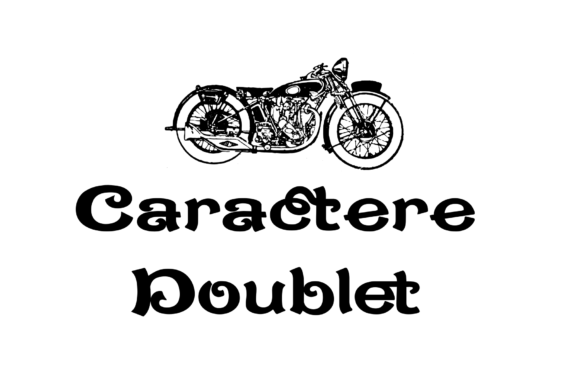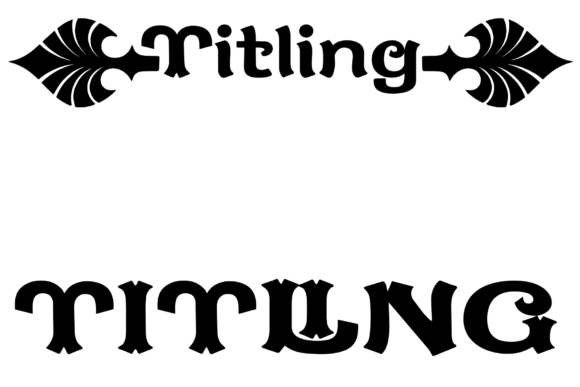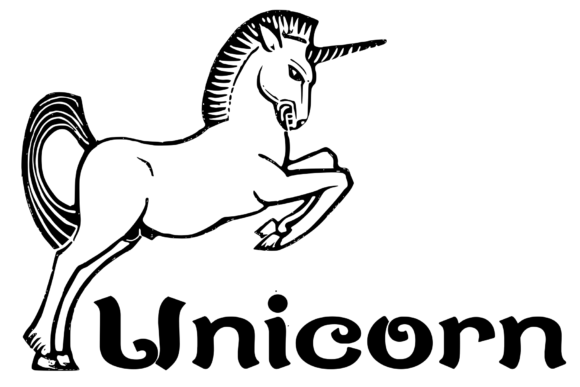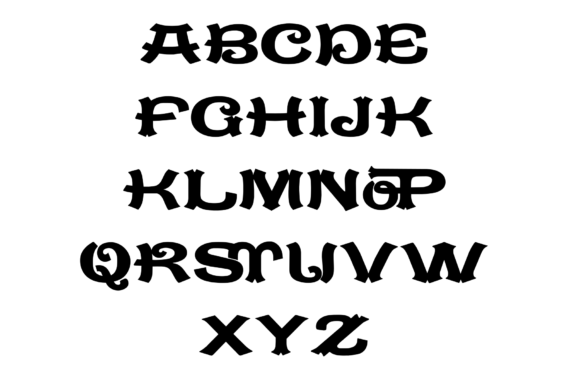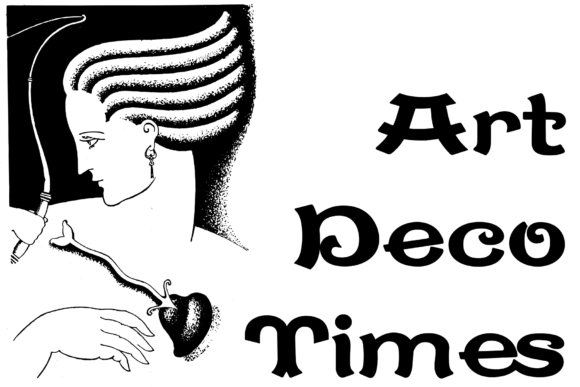
Caractere Doublet
Caractere Doublet is a retro and Western font family. Use this display font to add that special retro touch to any design idea you can think of! Masterfully designed to become a true favorite, this font has the potential to bring each of your creative ideas to the highest level!